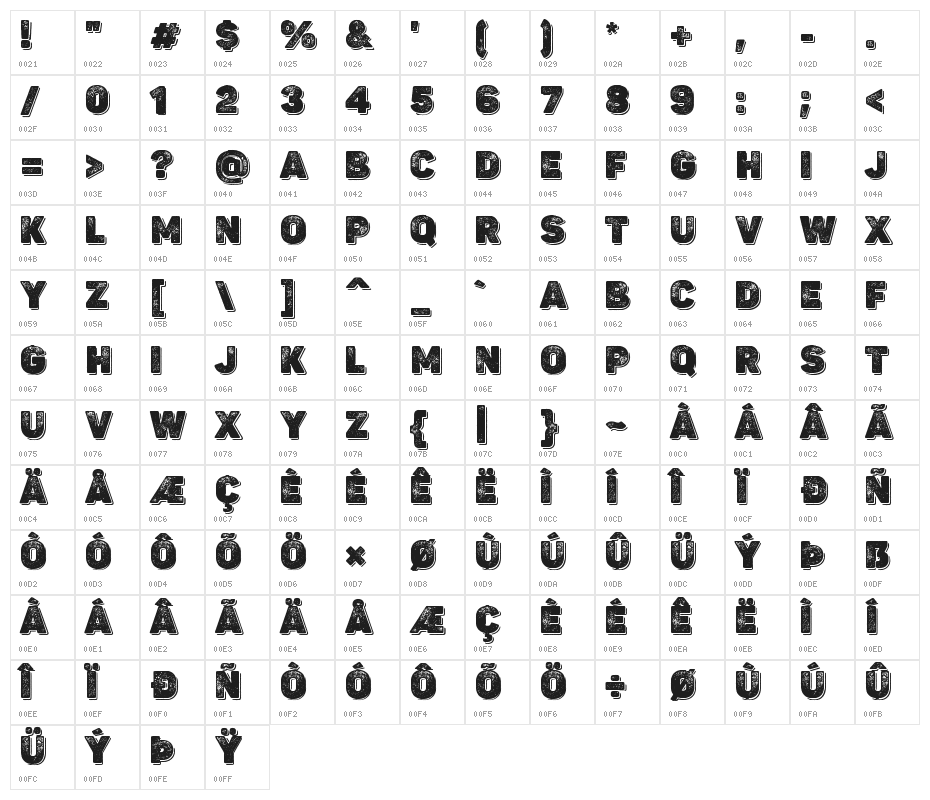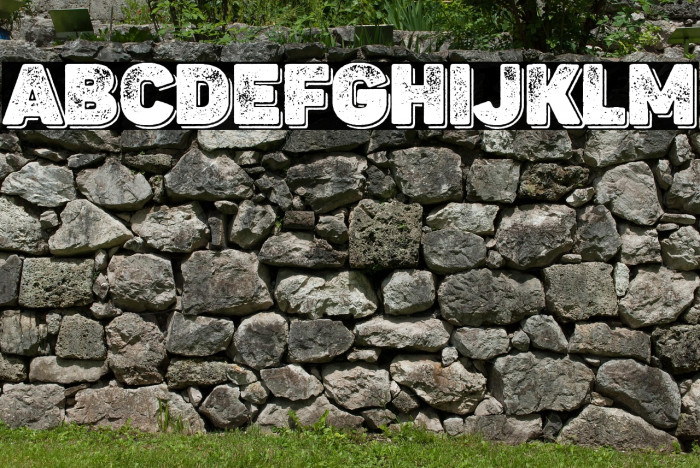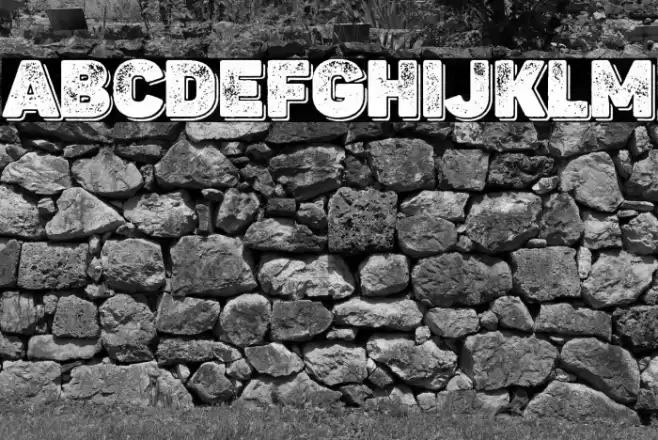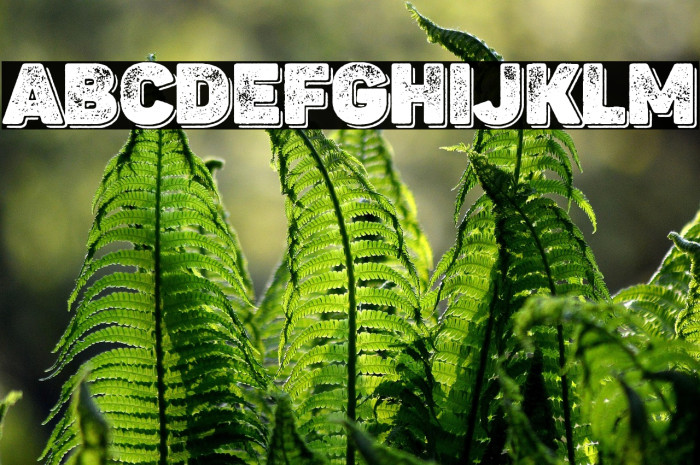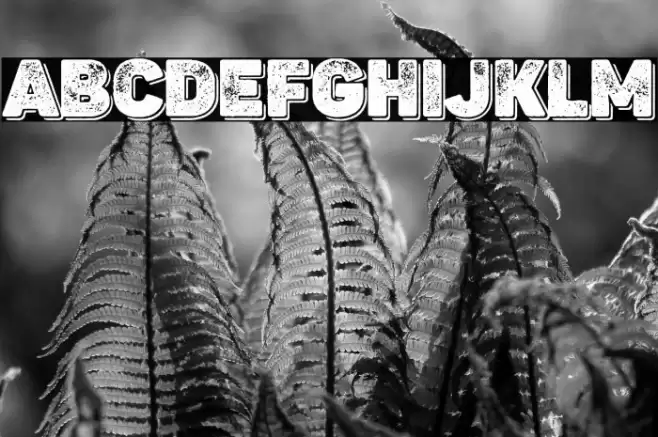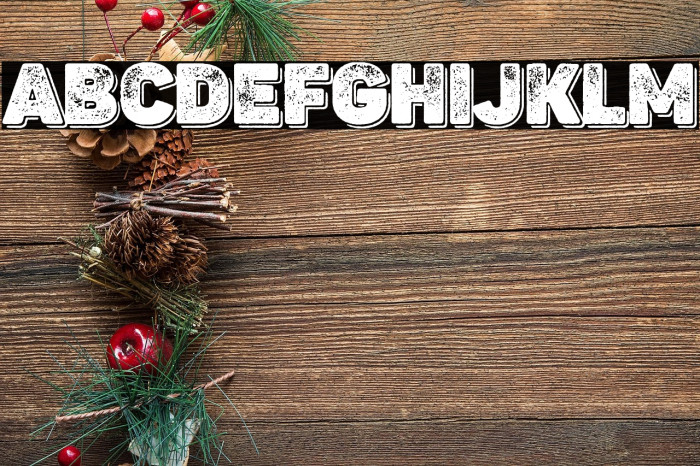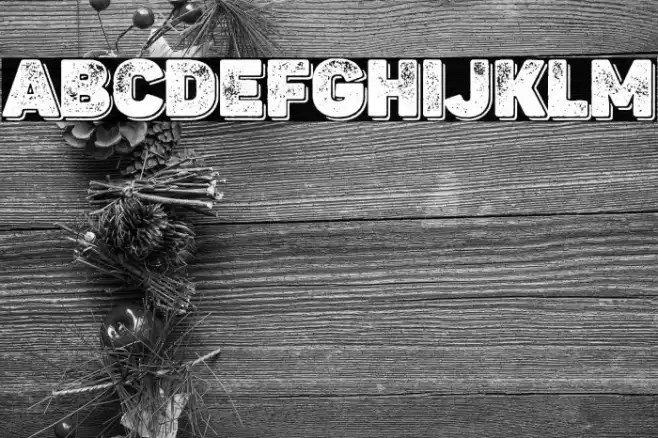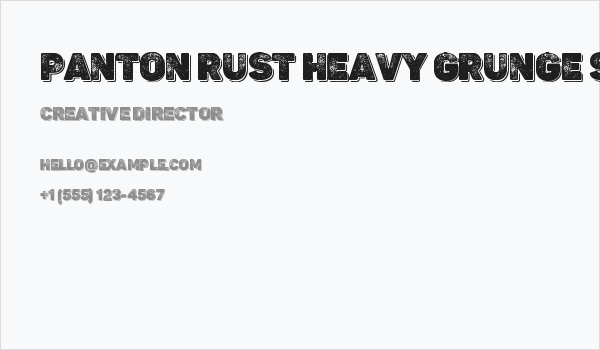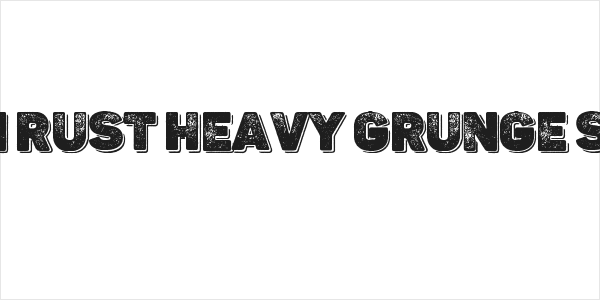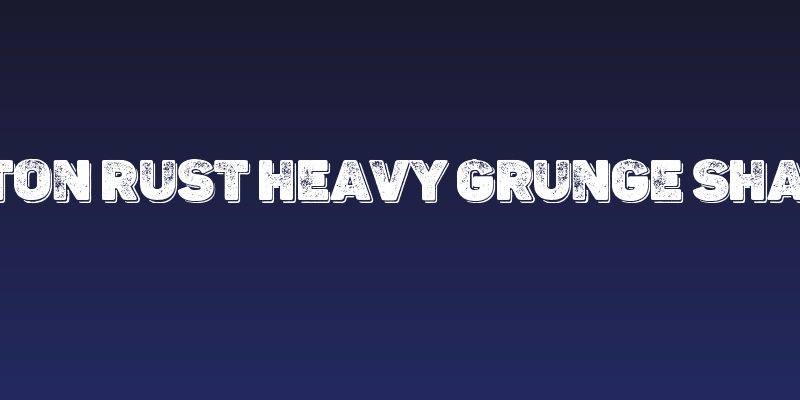
Panton Rust Heavy Grunge Shadow Font
Panton Rust Heavy Grunge Shadow Description
This font features a bold, distressed style with a grunge texture that gives it a rugged and vintage appearance. The characters are thick and heavy, with a shadow effect that adds depth and dimension. The distressed texture varies across each character, providing a unique and handcrafted feel. This font is ideal for projects that require a strong, impactful look with a touch of nostalgia. The uppercase letters are prominent and commanding, while the numbers and special characters maintain the same bold and textured style.
| Proposed Projects | Ideal for posters, album covers, vintage-themed designs, and branding that requires a strong, retro aesthetic. |